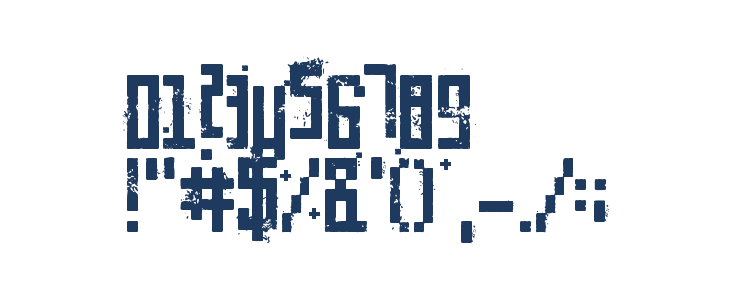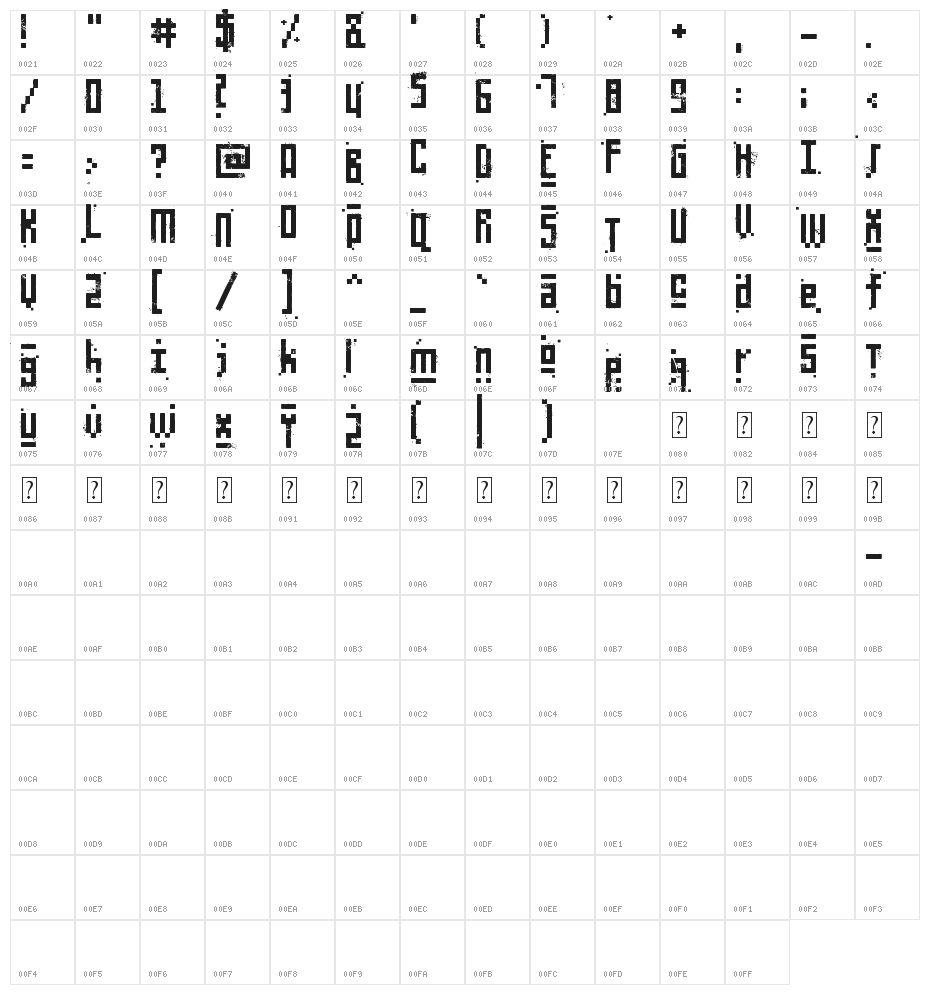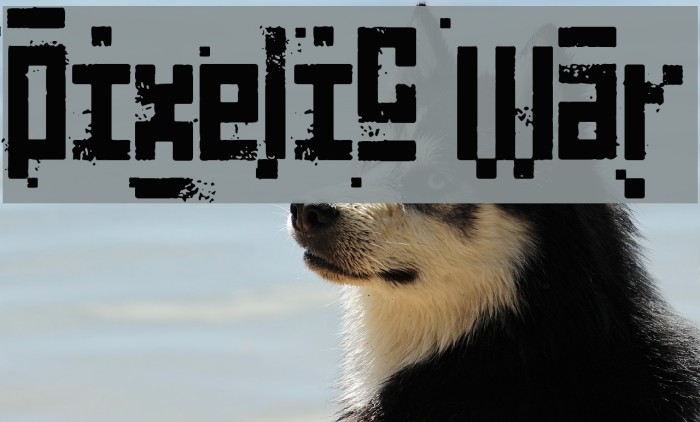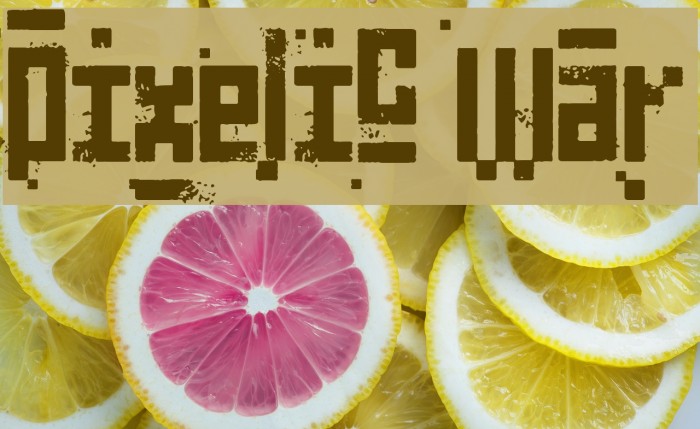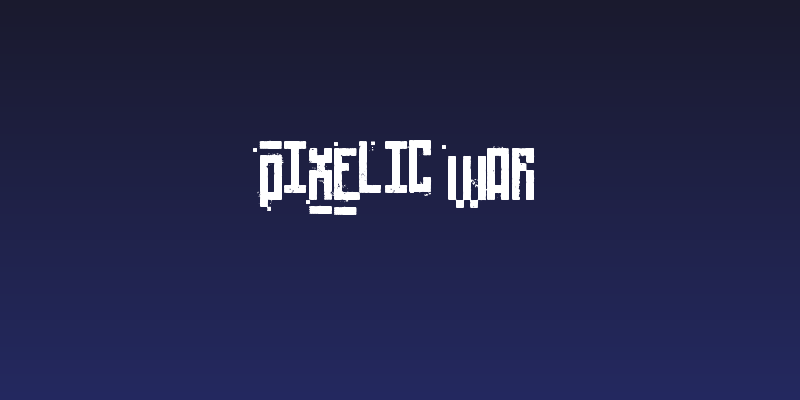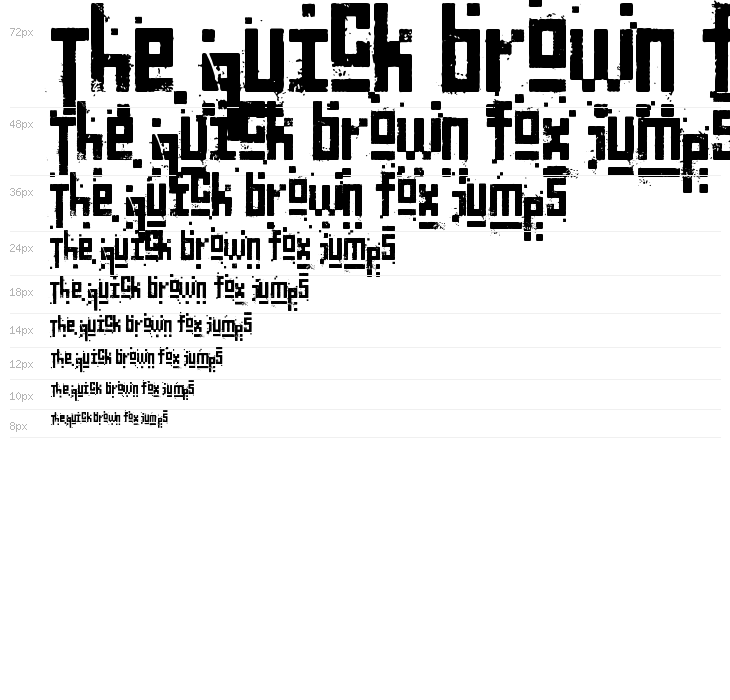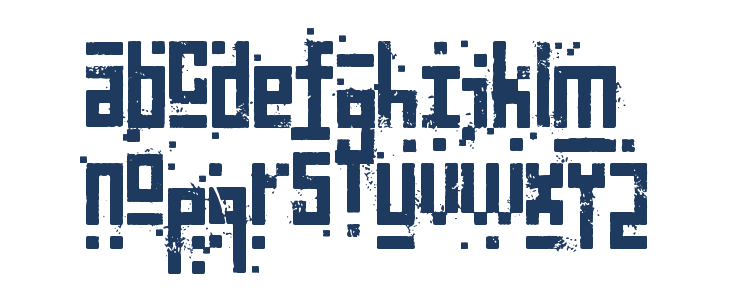
Pixelic War Font
Pixelic War Description
This font features a bold and distressed style, reminiscent of a pixelated or digital aesthetic with a grunge twist. The characters are blocky and geometric, with a consistent height and width that gives it a monospaced appearance. The distressed texture adds a rugged, worn look, making it ideal for projects that require a vintage or industrial feel. The uppercase and lowercase letters maintain a uniform structure, while the numerals and special characters follow the same stylistic approach. This font is particularly suitable for creative designs that aim to capture attention with its unique, edgy appearance.
| Proposed Projects | Ideal for posters, album covers, video game graphics, and urban-themed designs. |